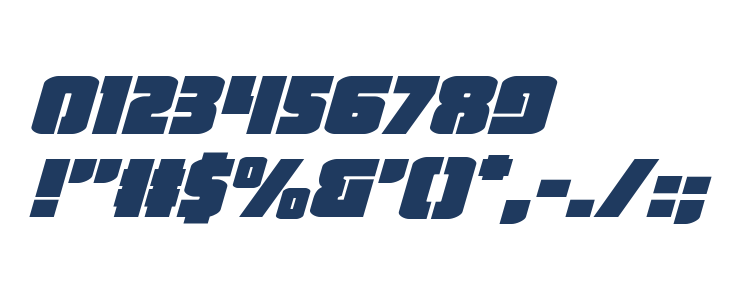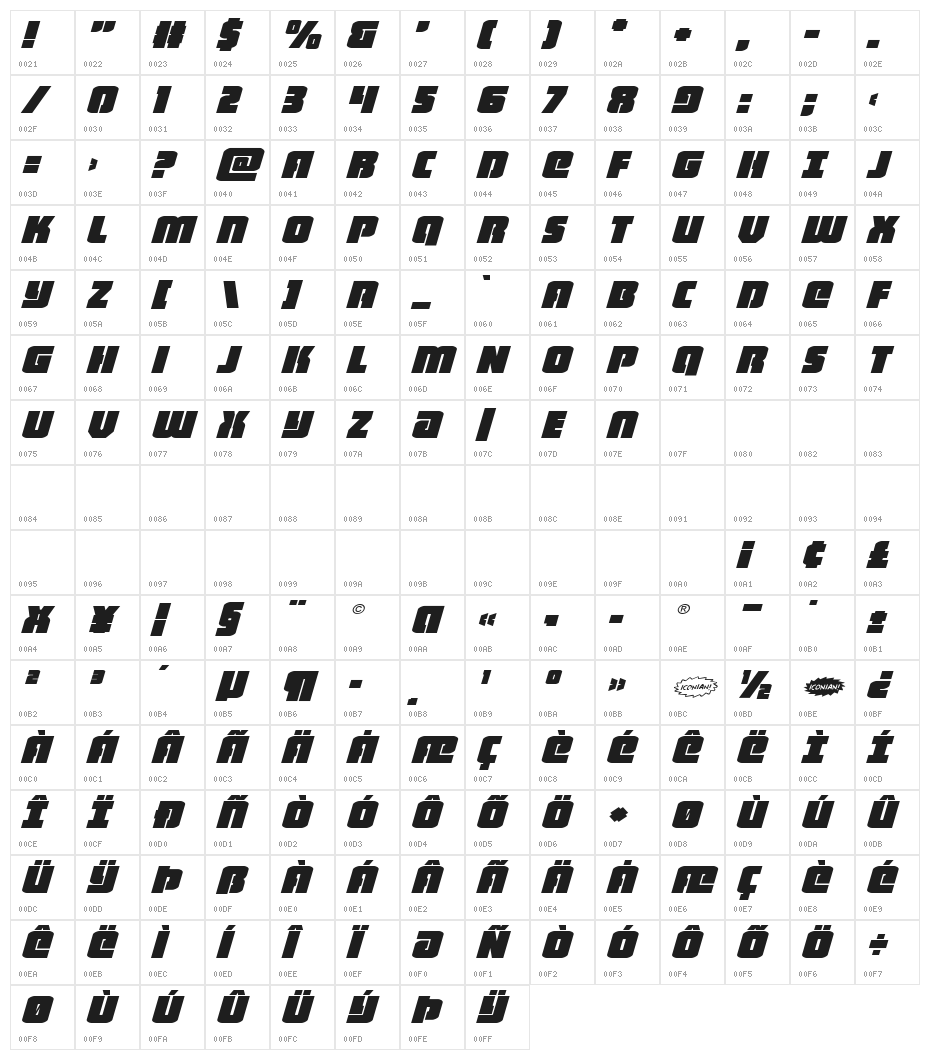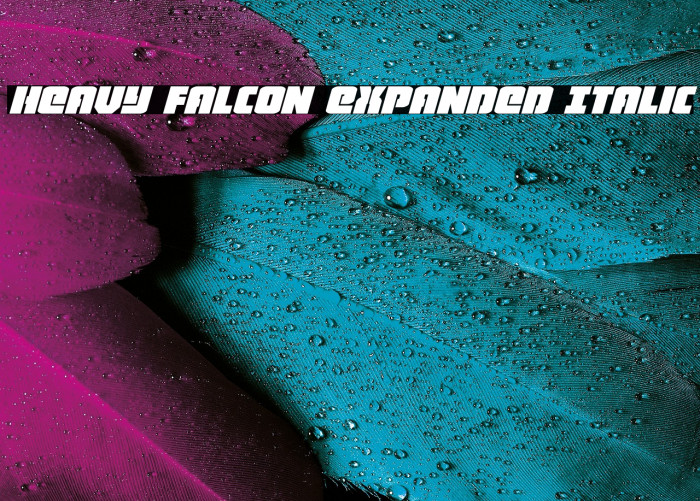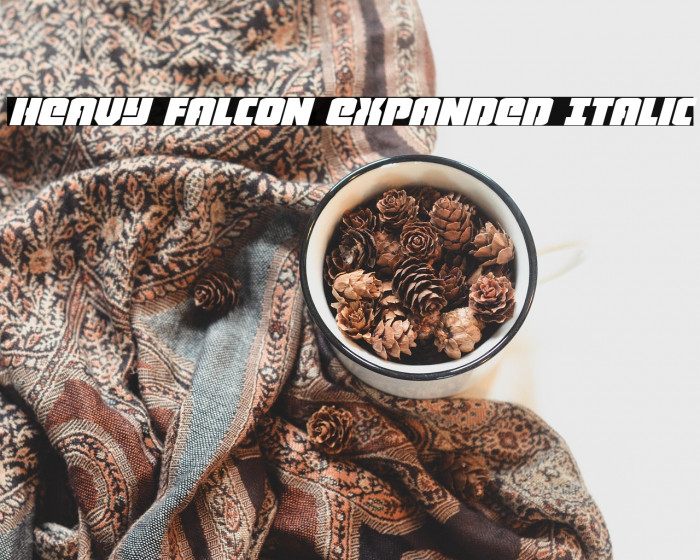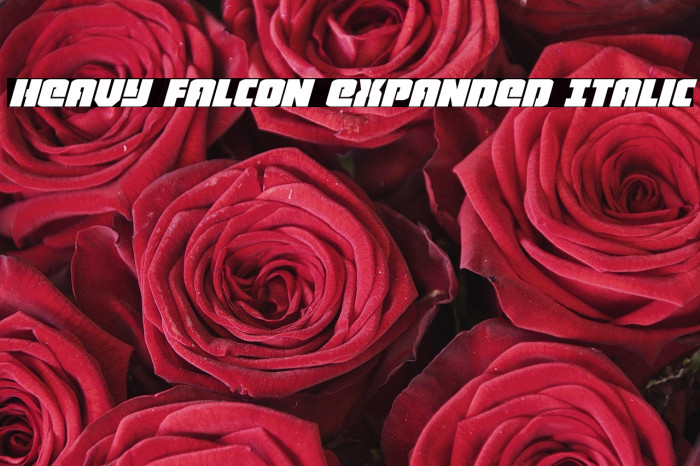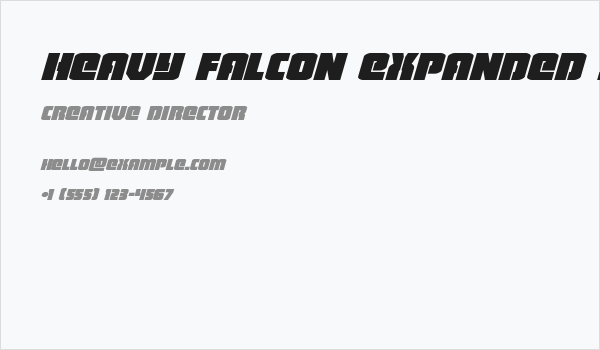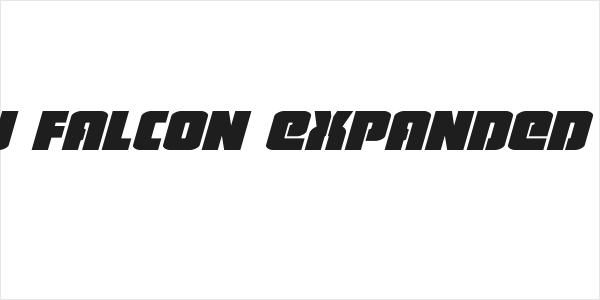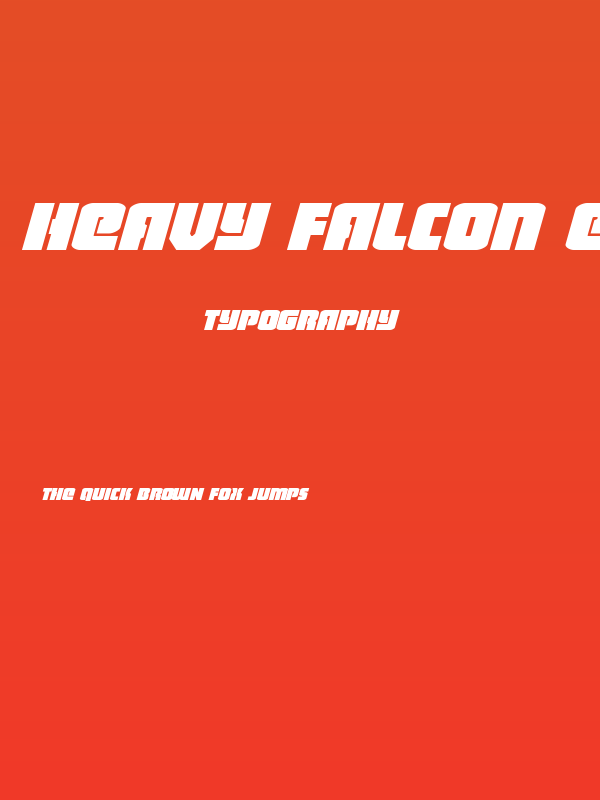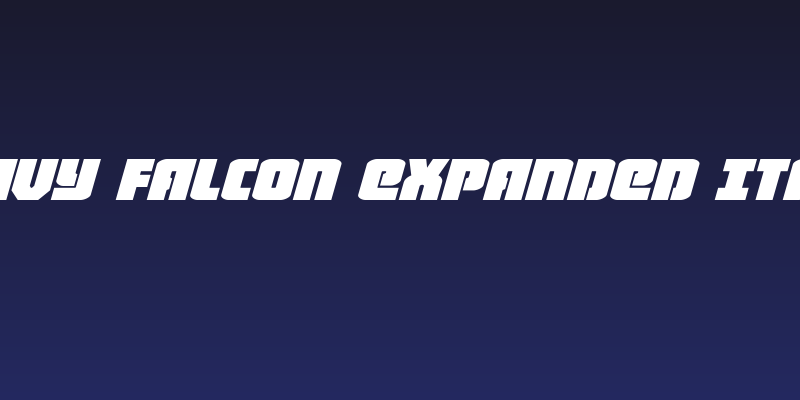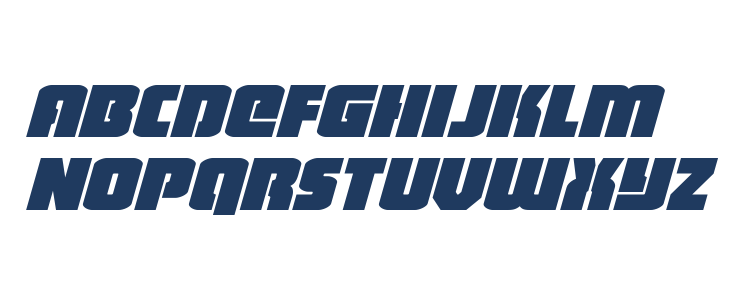
Heavy Falcon Expanded Italic Font
Heavy Falcon Expanded Italic Description
This font features a bold and dynamic style with an expanded width and italic slant. The characters are heavily stylized with sharp angles and a futuristic appearance, making it stand out in any design. The uppercase letters are particularly striking, with a strong presence and unique geometric shapes. The numbers and special characters maintain the same boldness and angular design, ensuring consistency throughout. This font is ideal for projects that require a modern and impactful look.
| Proposed Projects | Ideal for branding, sports team logos, video game titles, and any project needing a strong, modern aesthetic. |